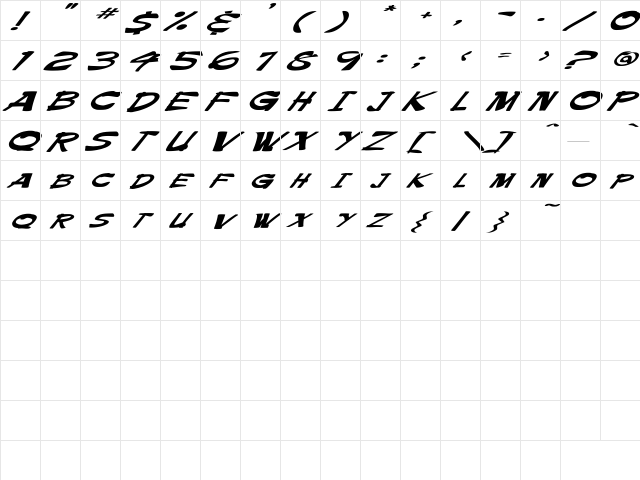
Paintbrush Ex Bold Italic Bold Italic
Design Context for Paintbrush Ex Bold Italic Typeface
Paintbrush Ex Bold Italic flows with the natural rhythm of handwritten lettering, making it ideal for designs that call for warmth and personal expression. Its bold stroke weight gives it real presence on the page.
Font Pairing: Combine Paintbrush Ex Bold Italic with a simple geometric sans for maximum contrast — the tension between flowing curves and clean structure is a classic typographic pairing.
Pro Tip: Pair Paintbrush Ex Bold Italic with a clean sans-serif for supporting text. The contrast between fluid script and geometric structure creates an elegant typographic hierarchy.